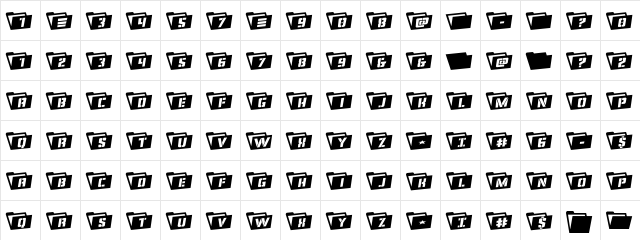
Eyes Only Rotated Regular
Design Context for Eyes Only Rotated Typeface
Eyes Only Rotated is a composed and adaptable typeface that performs quietly and consistently across a wide range of design contexts.